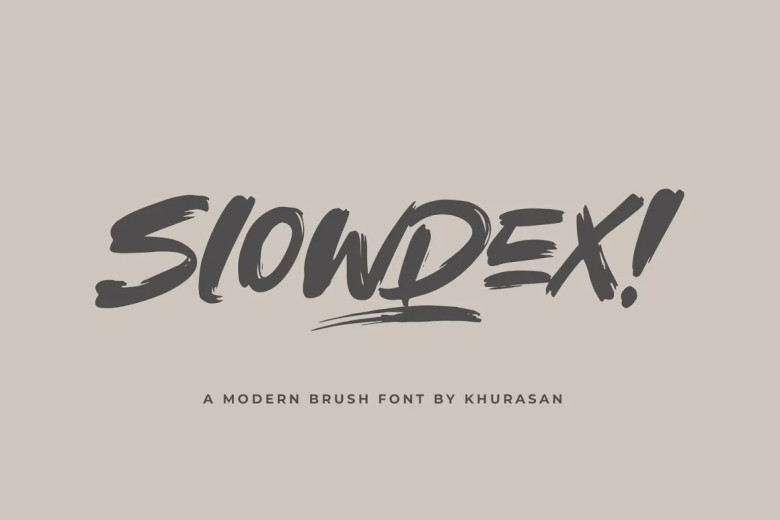
Slowdex Font
Slowdex is a contemporary brush typeface designed specifically to be used on logos, posters, magazine covers, book covers banners, and much more! Use its handwritten font to design beautiful designs! Slowdex fits easily with various tasks so incorporate it in your creative ideas and see it shine!
Slowdex Brush Script Font